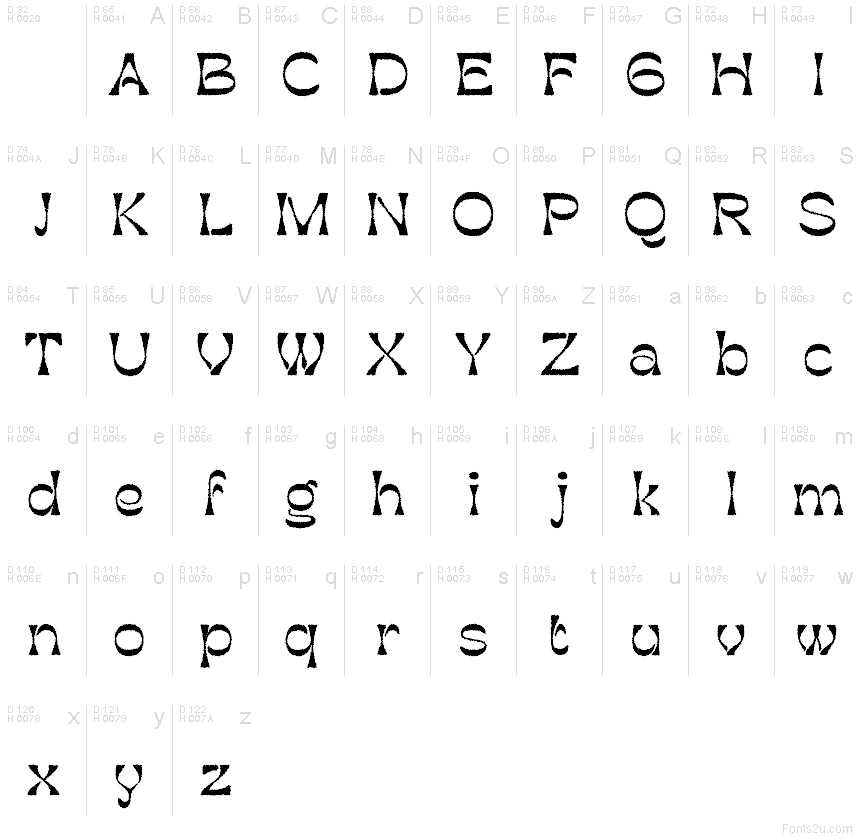
Rapsed Rough Regular Demo
Rapsed Rough font by Craft Supply Co. is a free decorative display typeface with an expanded, textured, and organic appearance. The font’s rustic outlook stems from a hand-crafted and artistic origin which gives the typeface authenticity and originality. Rapsed Rough creates a warm human vibe that is essential for many casual-themed projects.
This creative font matches bohemian-themed designs and artisan product packaging. Other possible uses are business cards, quotes, posters, signage, magazines covers or layouts, advertising campaigns (digital or printed), websites design, social media pages design such as Instagram or Facebook etc.